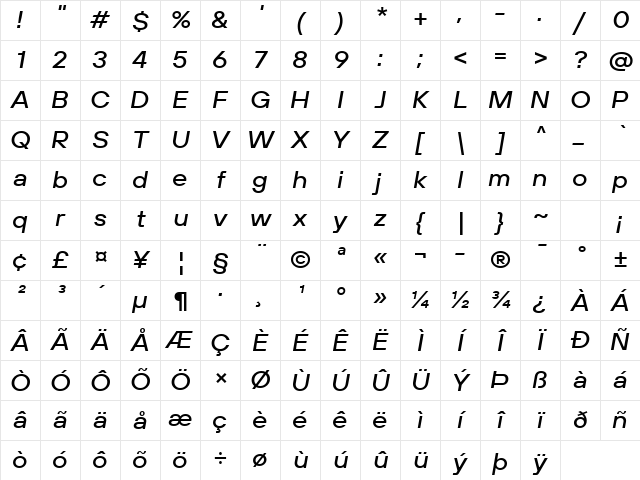
TT Hoves Pro Trl Expanded Medium Italic
Designer: Designed by Ivan Gladkikh, Pavel Emelyanov, Yulia Gonina, Marina Khodak, Radik Tukhvatullin, Nadyr Rakhimov. Technical designers Nadezhda Polomoshnova, Kseniya Karataeva, Olexa Volochay, Yuriy Nako, Tasya Petelina, Anastasia Pogorelova, Victor Rubenko.
Design Context for TT Hoves Pro Trl Expanded
TT Hoves Pro Trl Expanded is a composed and adaptable typeface that performs quietly and consistently across a wide range of design contexts. The slanted form adds forward momentum and visual energy.
Pro Tip: Use TT Hoves Pro Trl Expanded for emphasis, pull quotes, and subheadings where its slanted energy can add rhythm to the layout.